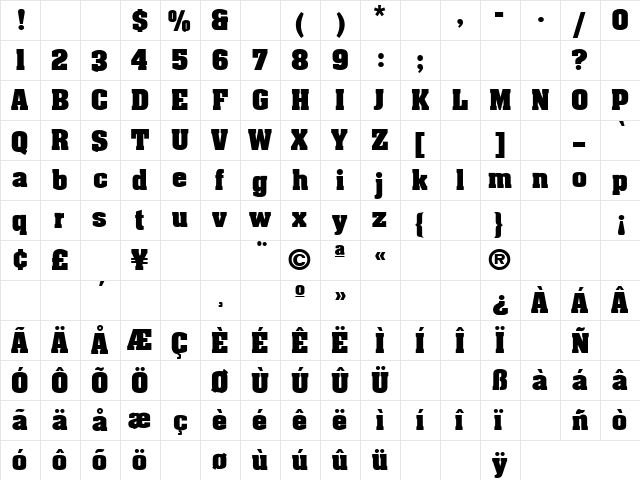
Drivebye 4 Regular
Design Context for Drivebye 4 Typeface
Drivebye 4 is a composed and adaptable typeface that performs quietly and consistently across a wide range of design contexts.